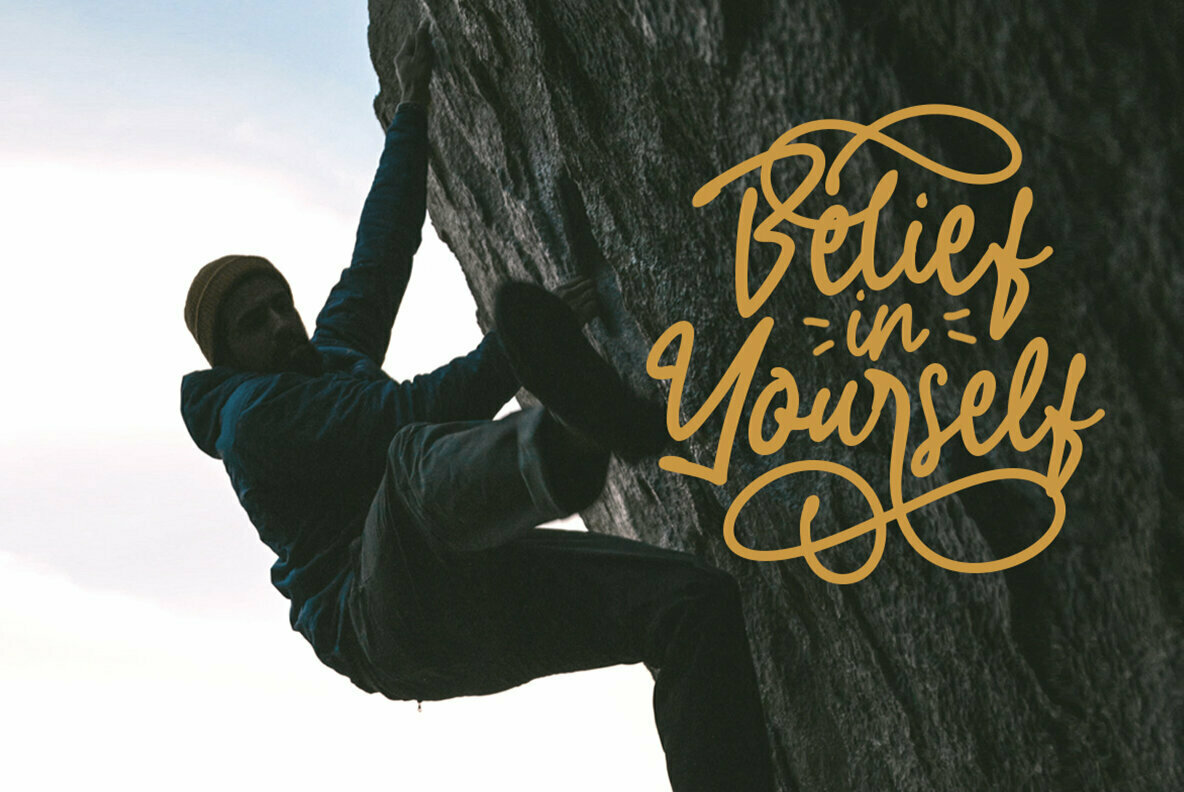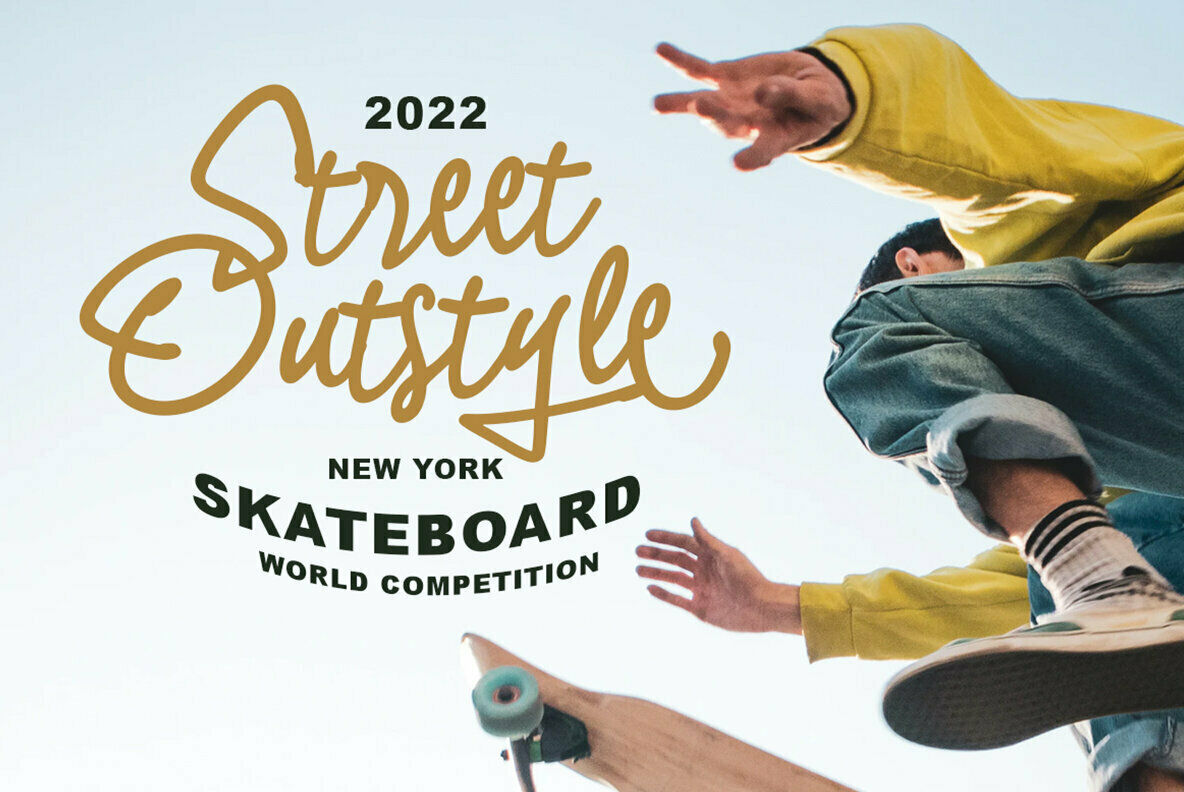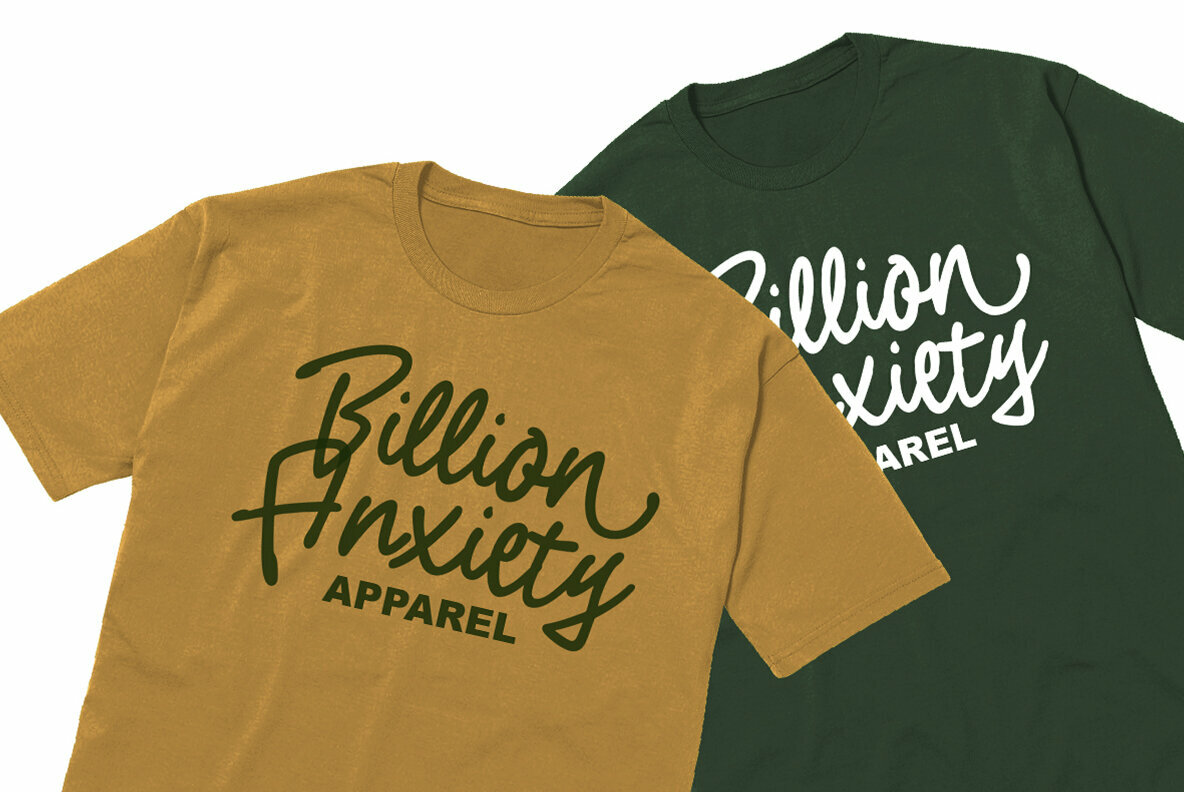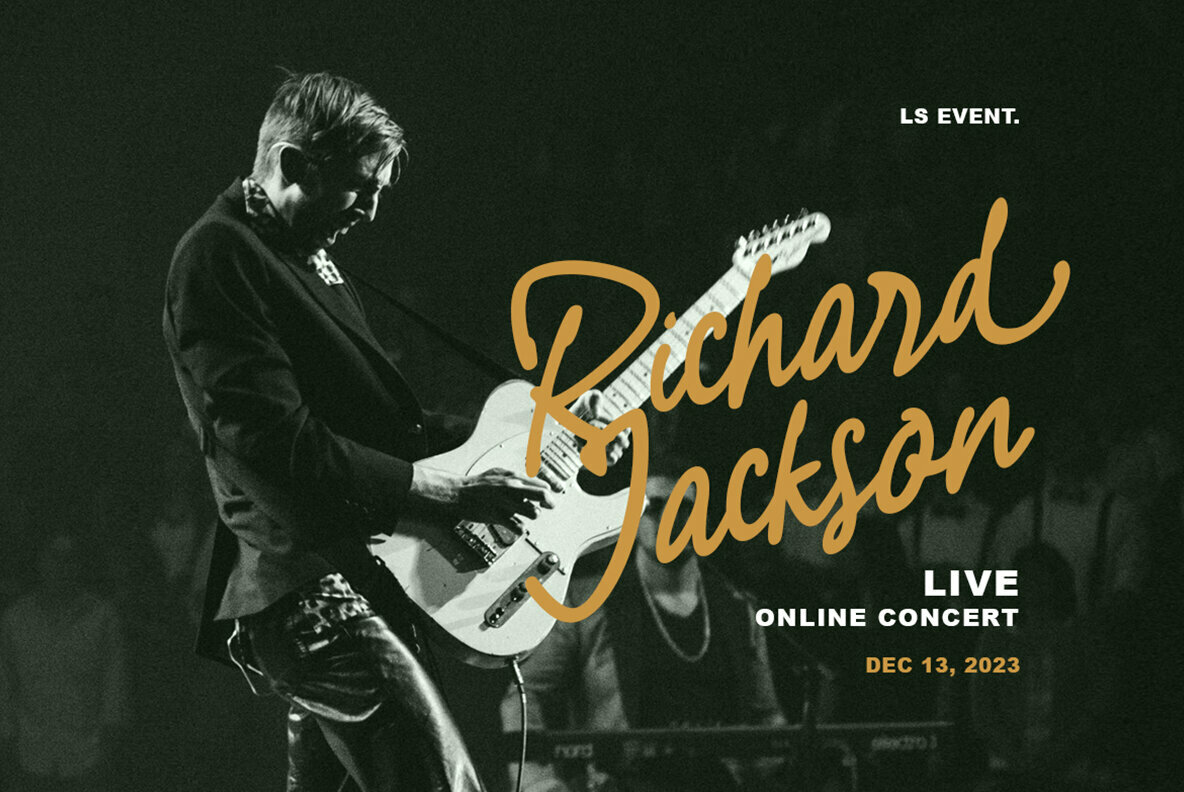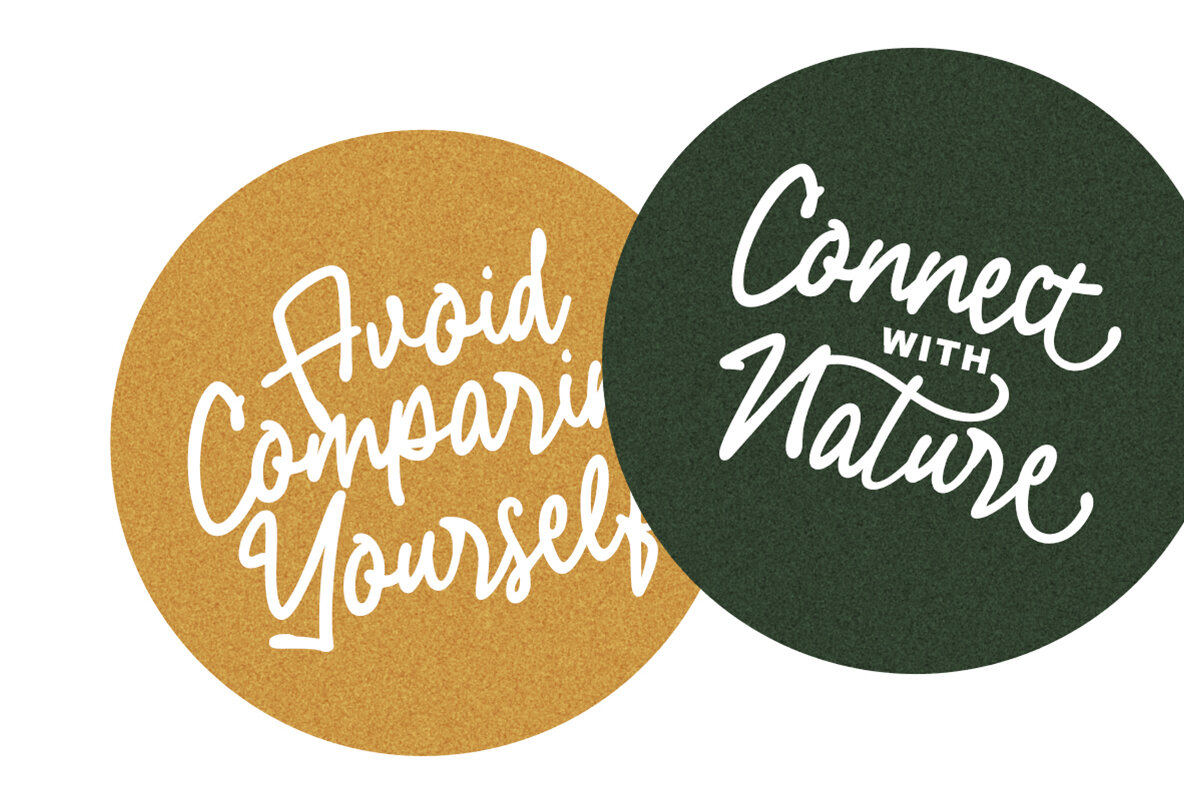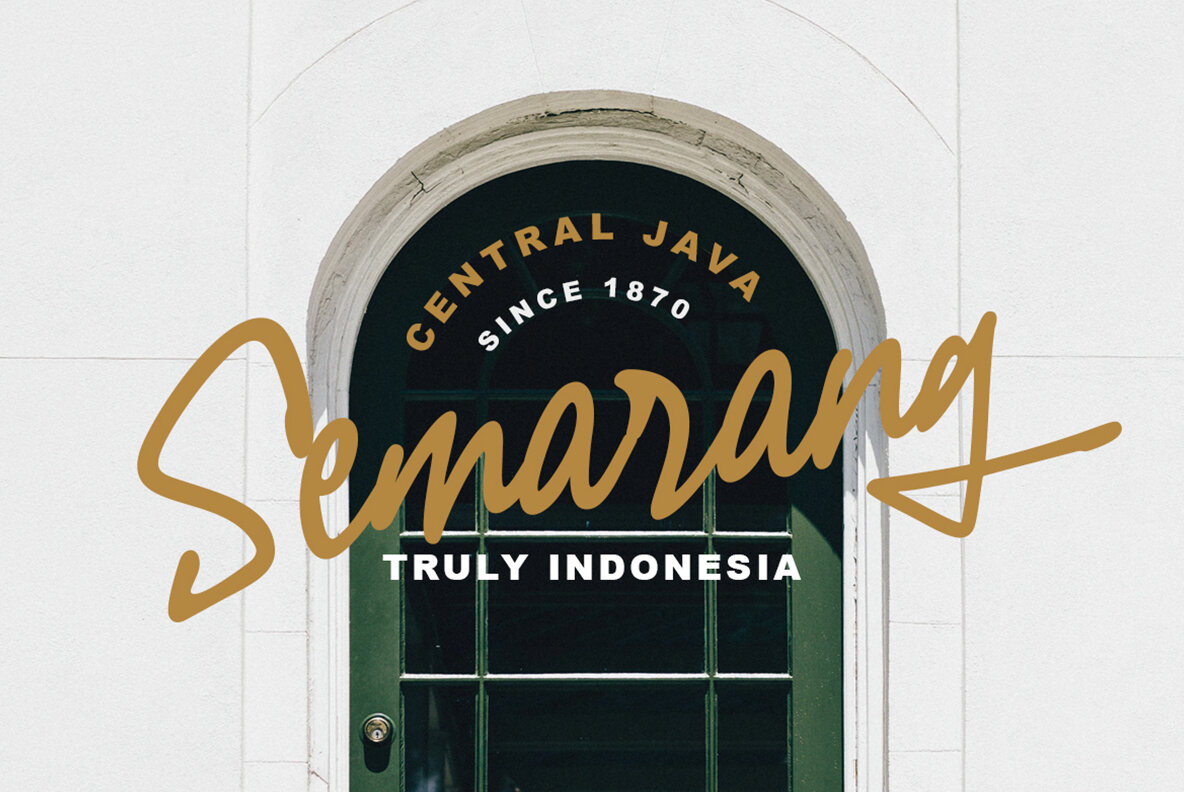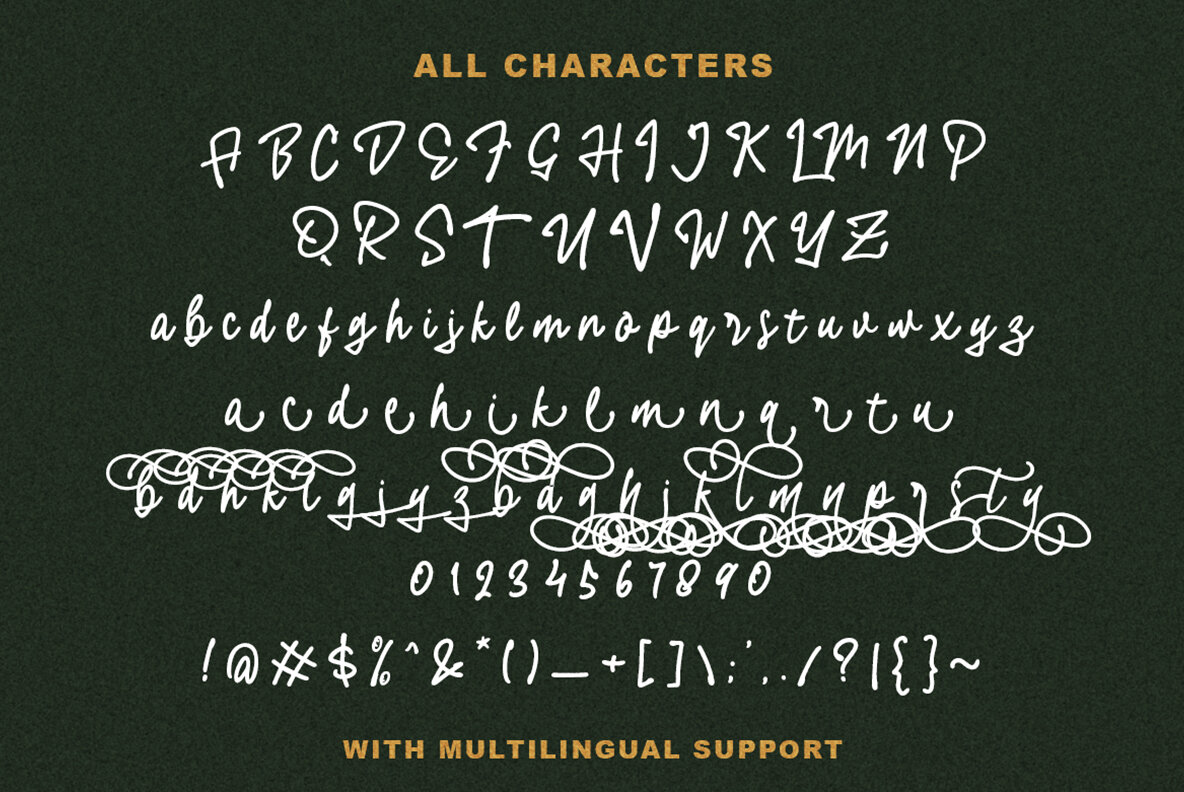
Donthank Font
Donthank Regular
Designed with graceful swashes, the Donthank Script Typeface by Letterhend Studio is ideal for crafting memorable quotes, distinguished branding, and appealing packaging. Its calligraphic style brings a touch of classic elegance to any project while maintaining versatility and modern flair.Donthank Script Typeface: Swash Elegance